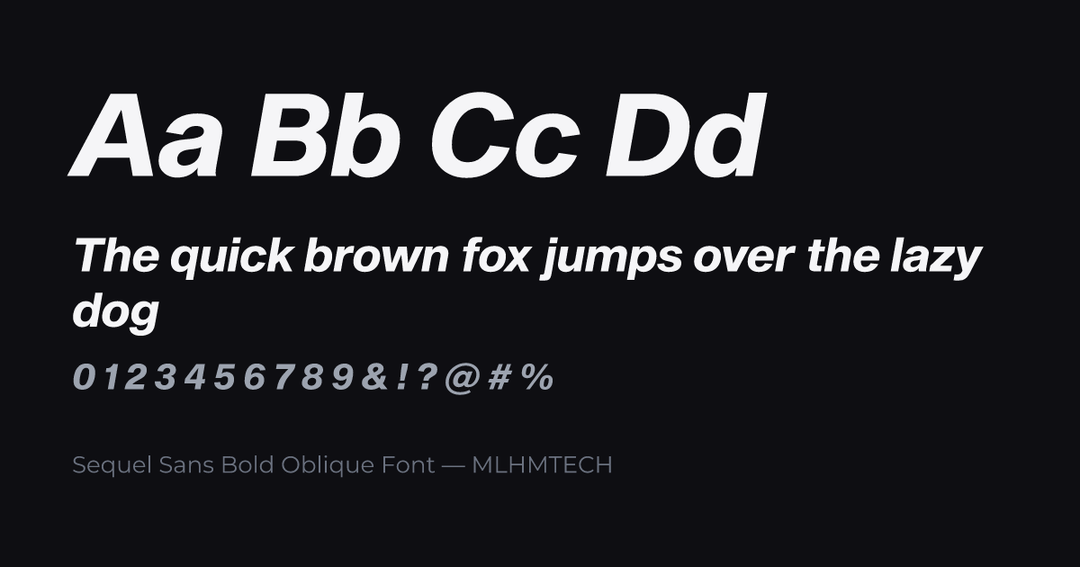
Sequel Sans Bold Oblique Font
Sequel Sans Bold Oblique is a modern, geometric sans-serif font with a bold, slanted style. Ideal for impactful headlines and branding.
Sequel Sans Bold Oblique is a high-quality typeface that combines the clean, geometric forms of a sans-serif with a dynamic oblique slant. Its bold weight ensures strong visibility, making it perfect for headlines, posters, and branding materials that need to stand out.
This font is part of the Sequel Sans family, known for its versatility and modern aesthetic. The oblique style adds a sense of motion and energy, while maintaining legibility across various sizes. Whether you're designing a logo, website, or print collateral, this font will give your project a contemporary edge.